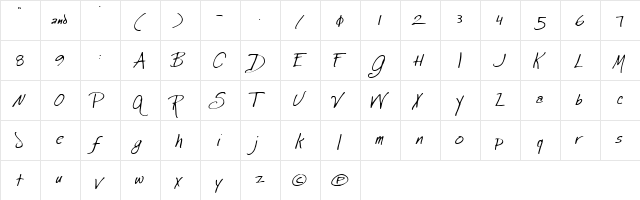
Jewel Hill Regular
Design Context for Jewel Hill Typeface
Jewel Hill is a composed and adaptable typeface that performs quietly and consistently across a wide range of design contexts.